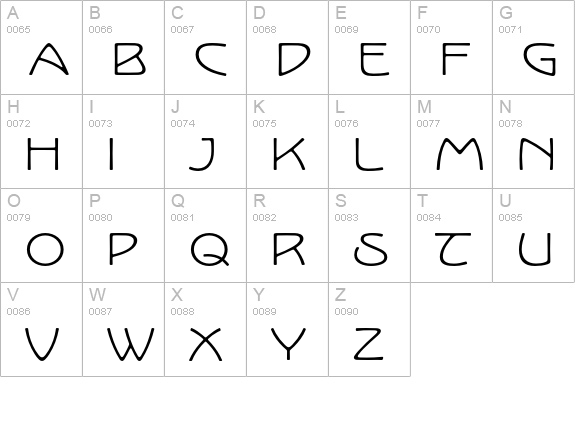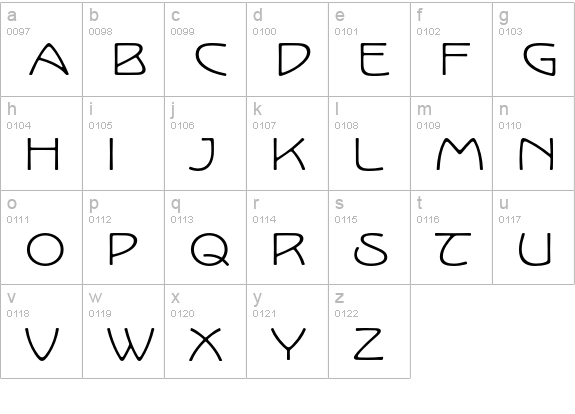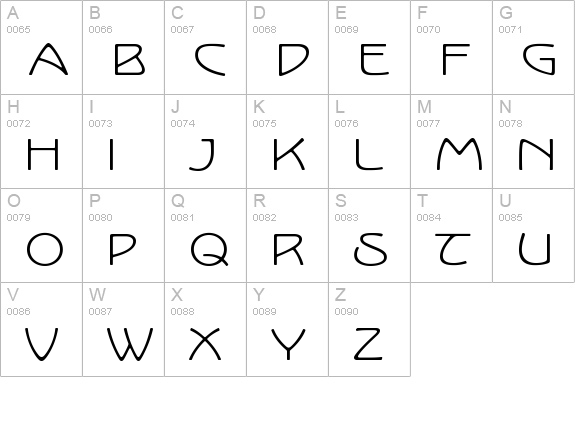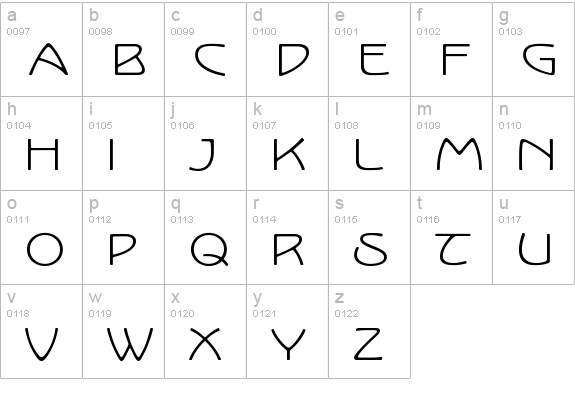
Kolo LP Std Wide Font Details
Kolo LP Std Wide is a distinctive, extended-width variant in the Kolo typeface family \xE2\x80\x94 well suited to design and typography projects.
Kolo LP Std Wide font is a modern and versatile typeface that exudes elegance and sophistication. With its clean lines and wide proportions, this font is perfect for a wide range of design projects, from branding to editorial design. Its bold and distinctive appearance makes it stand out and grab attention. What sets Kolo LP Std Wide font apart is that it is available for free download at FontsMarket.com. This means that you can easily access this high-quality typeface without any cost, making it an excellent choice for both personal and commercial projects. Whether you are designing a logo, poster, website, or any other creative work, Kolo LP Std Wide font will elevate your design and give it a professional and polished look. Don't miss out on this fantastic opportunity to enhance your projects with this exceptional font. Download it for free today at FontsMarket.com!